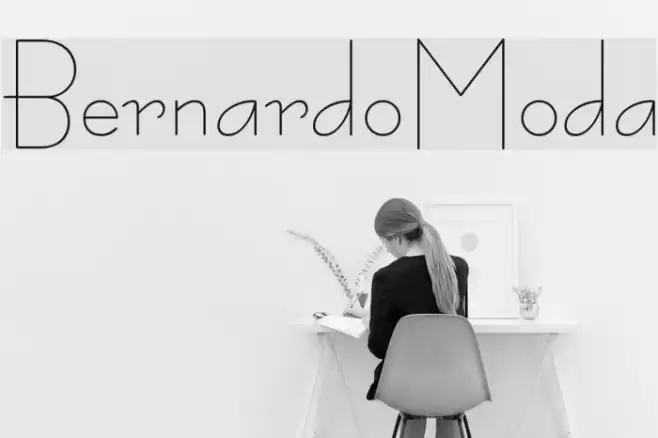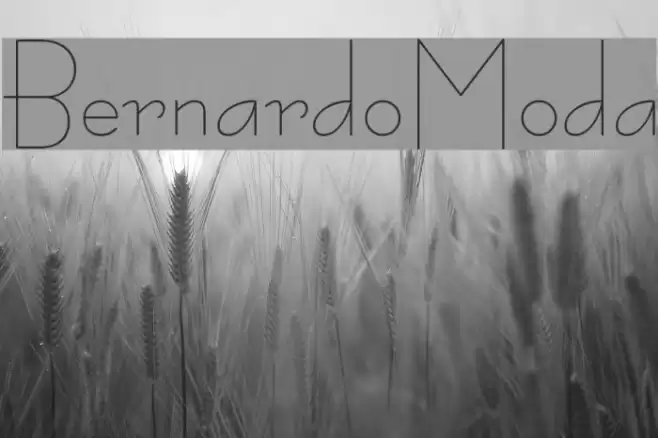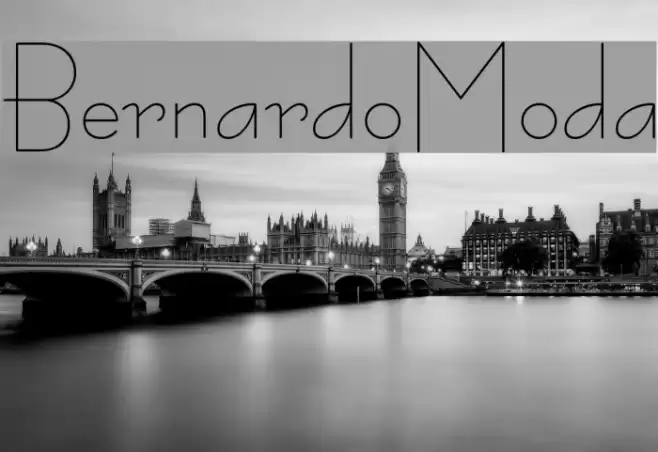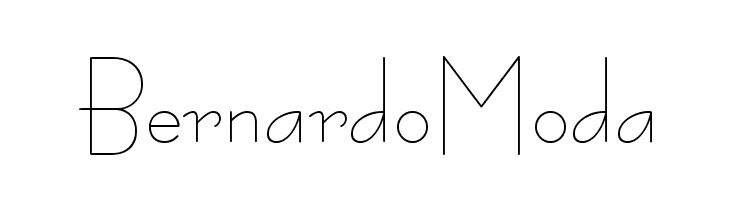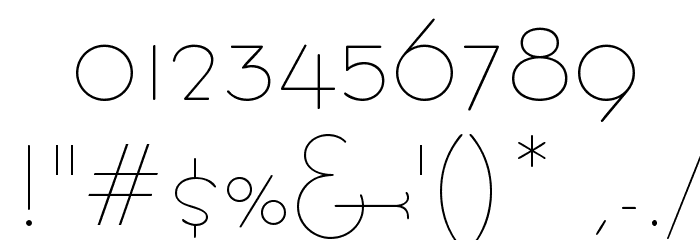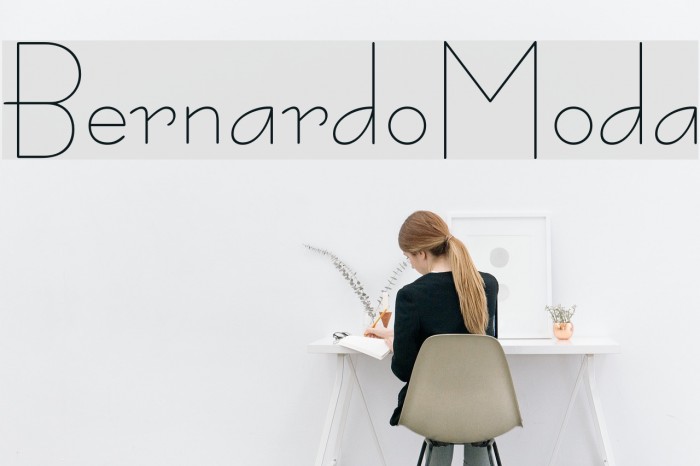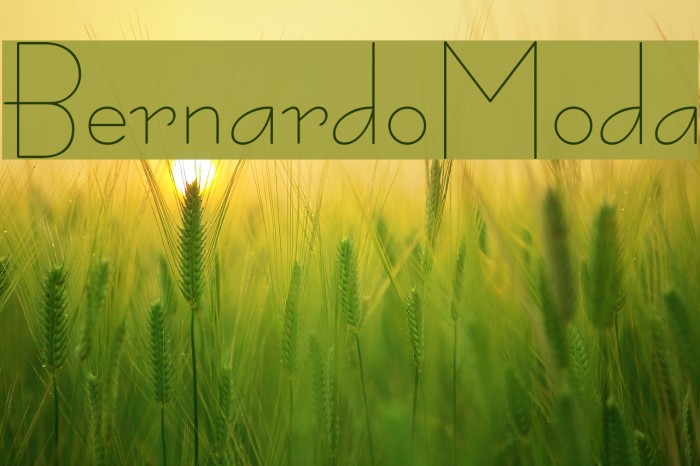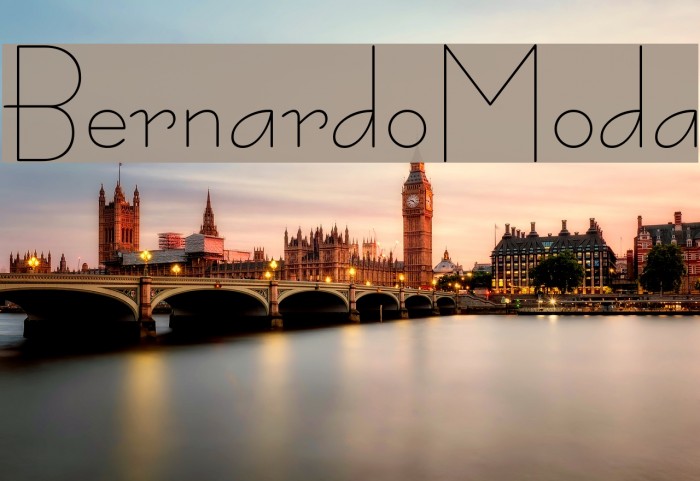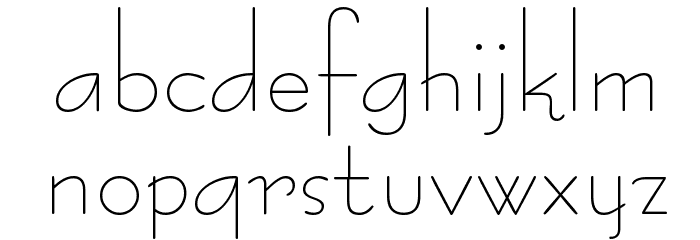
BernardoModa Font
BernardoModa Description
This font features a sleek and modern design with thin, clean lines and a minimalist aesthetic. The uppercase letters are characterized by their geometric shapes and sharp angles, giving them a contemporary feel. The lowercase letters maintain a consistent style with a slightly more rounded appearance, adding a touch of elegance. The numerals are designed with the same thin strokes, ensuring uniformity across the typeface. Special characters are included, maintaining the font's overall streamlined look. This font is ideal for projects that require a modern and sophisticated touch, such as branding, editorial design, and digital interfaces.
A sleek, modern font with thin lines and geometric shapes from Uncategorized fonts.
- Proposed Projects: Ideal for branding, editorial design, digital interfaces, and minimalist projects.
- Weight: Light
- Use Case: Headlines, Logos, Digital interfaces